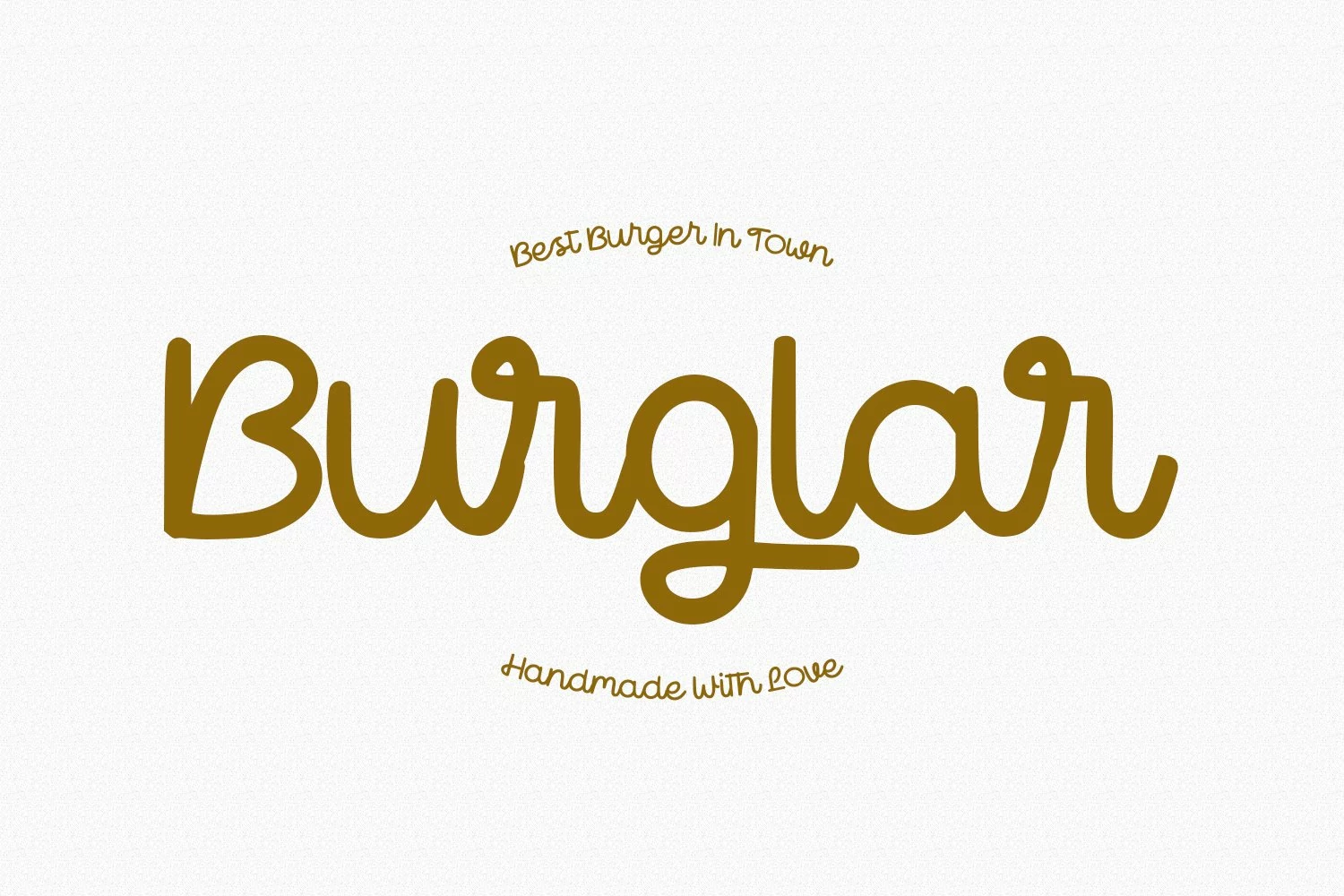
Legrraty is a retro casual handwritten script font. With medium mono-line consist stroke, fun character with a bit of ligatures and stylistic alternates. To give you an extra creative work. Legrraty font support multilingual more than 100+ language. This font is good for logo design, Social media, Movie Titles, Books Titles, a short text even a long text letter and good for your secondary text font with sans or serif. Make a stunning work with Legrraty font.